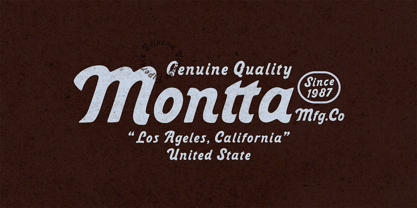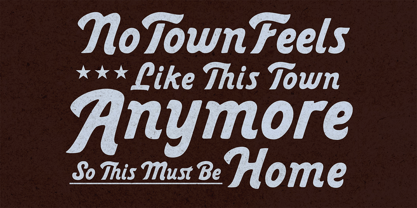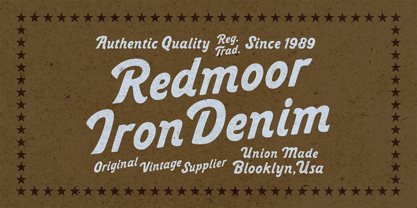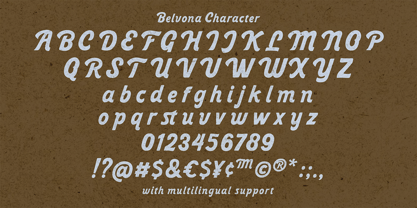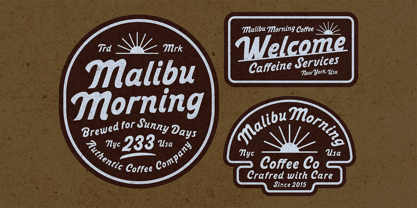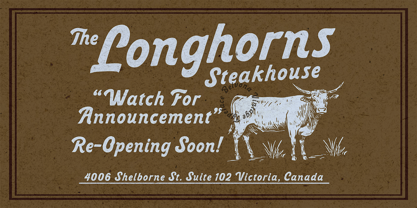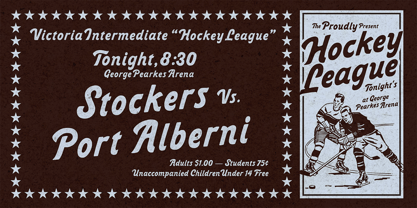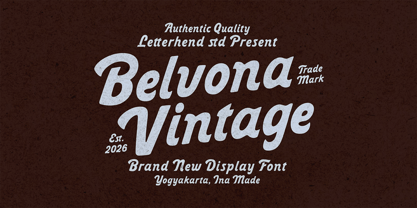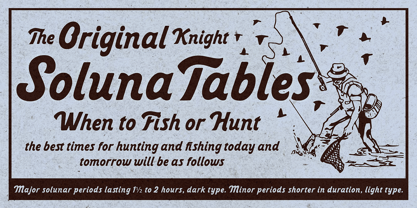
Belvona
by Letterhend
The Belvona Font Family was designed by Hendry Juanda and published by Letterhend. Belvona contains 1 styles. More about this family
Inspired by classic signage and old-school storefront lettering, Belvona Vintage brings smooth golden-era charm with a warm, slow-roasted attitude. It’s the kind of typeface that looks right at home on a steakhouse sign, a heritage logo, café branding, or a retro poster announcing something special in style. Features : Uppercase & lowercase Numbers and punctuation Alternates & Ligatures Multilingual Support PUA encoded